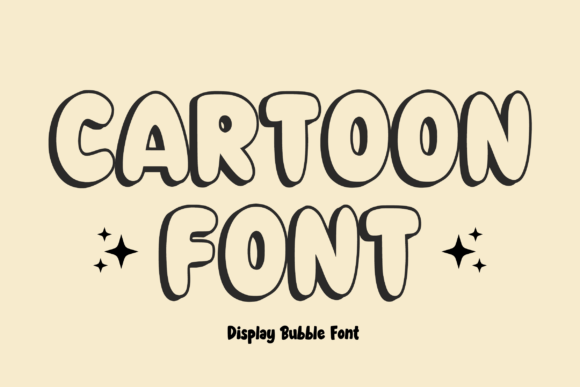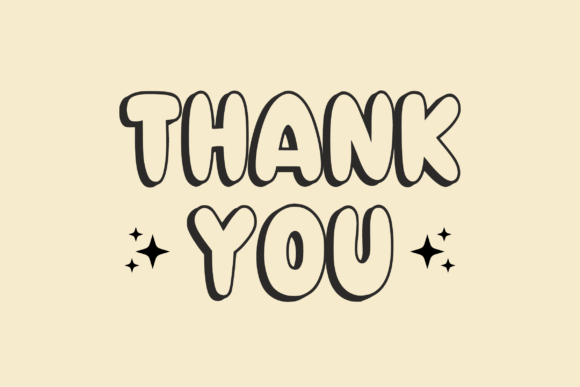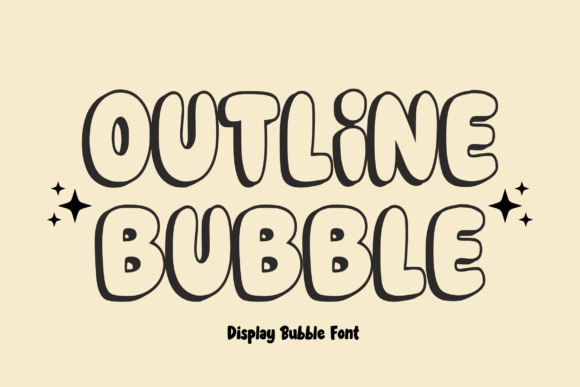
Introduction to Outline Bubble Font
Introducing Outline Bubble, a childish, easy-to-read display font that conveys impeccable friendliness.
Key Features of Outline Bubble Font